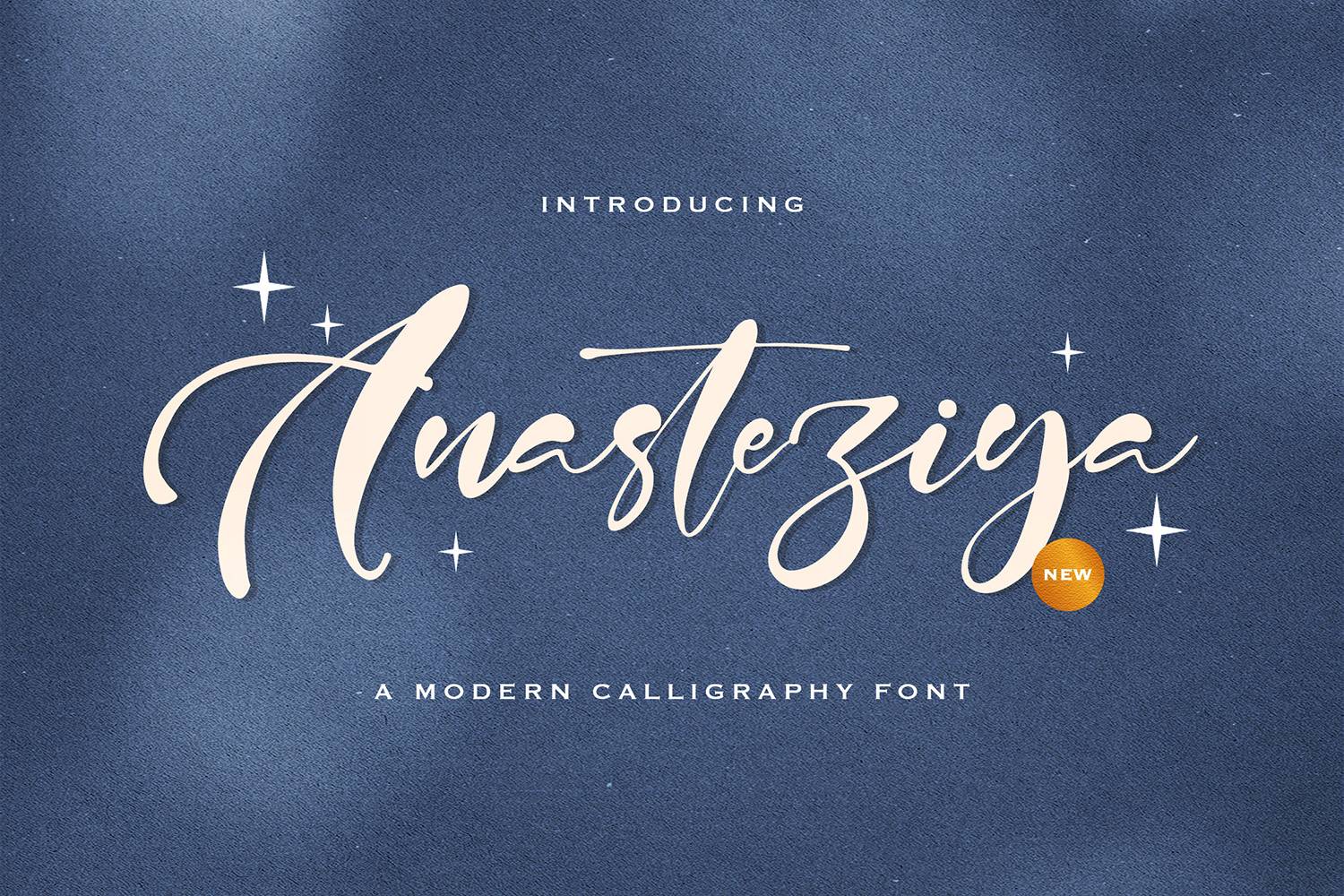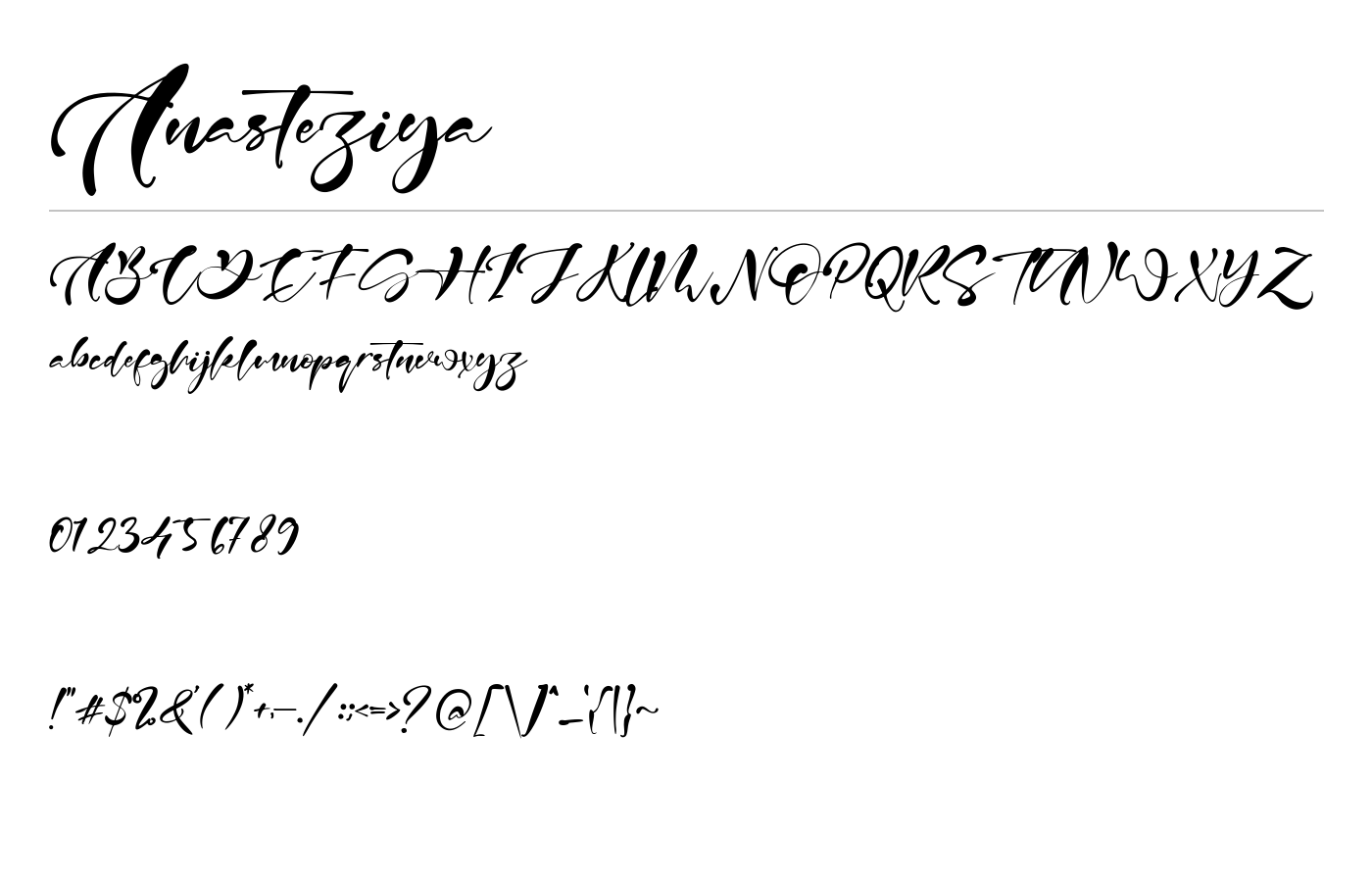
Anasteziya is an elegant script font characterized by its flowing, hand-lettered style with smooth, dynamic strokes and slightly varied thickness. Its artistic swashes and delicate curves make it perfect for luxury branding, wedding invitations, and feminine designs where a sophisticated yet personal touch is desired. This font excels in headlines and decorative uses, adding charm and elegance to any creative project.
Anasteziya Font
About Anasteziya Font